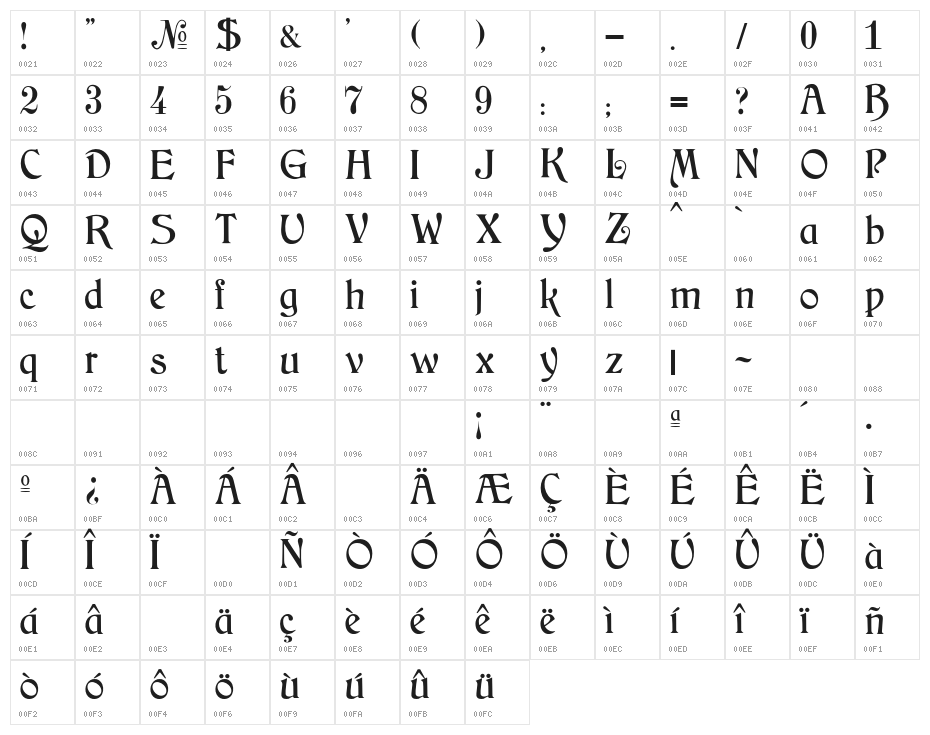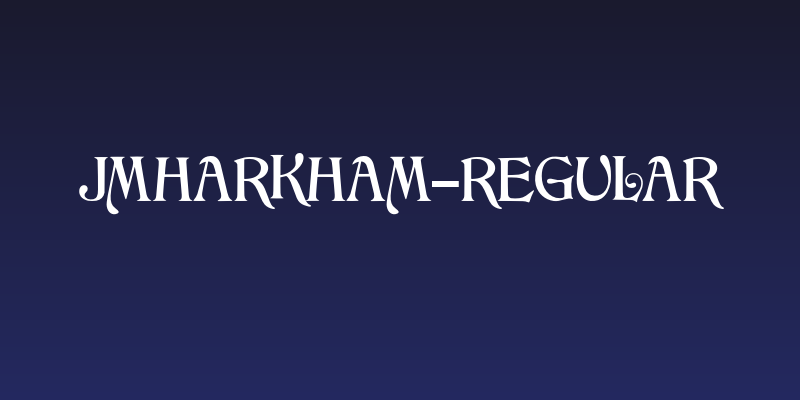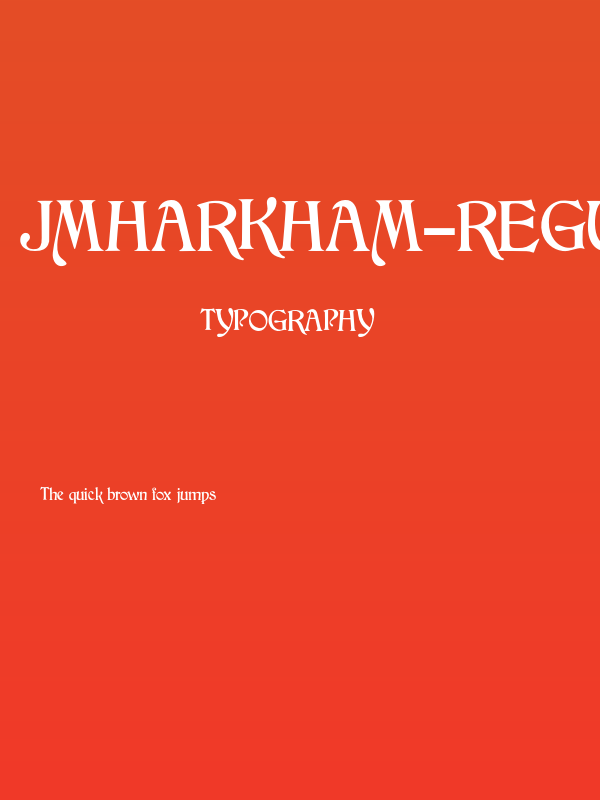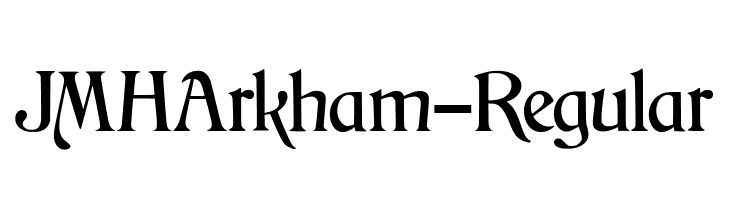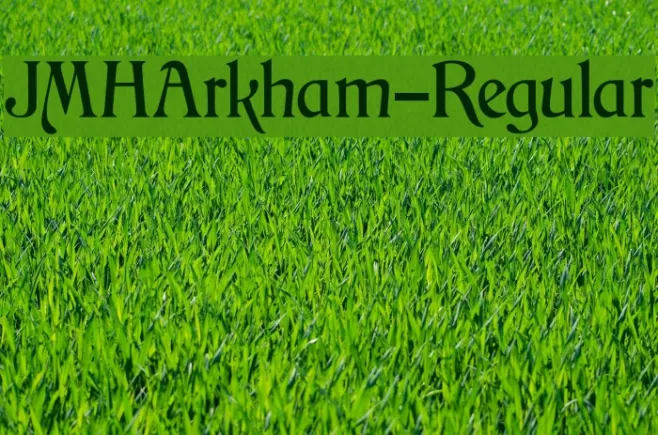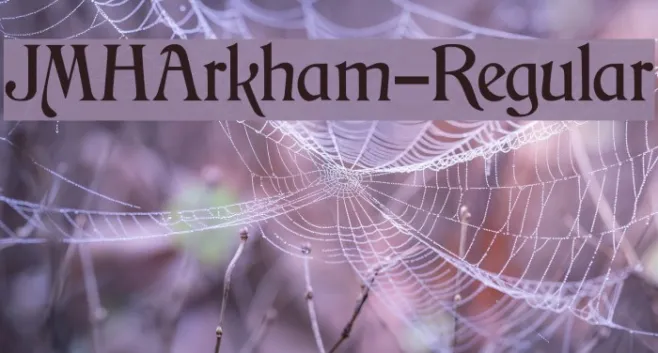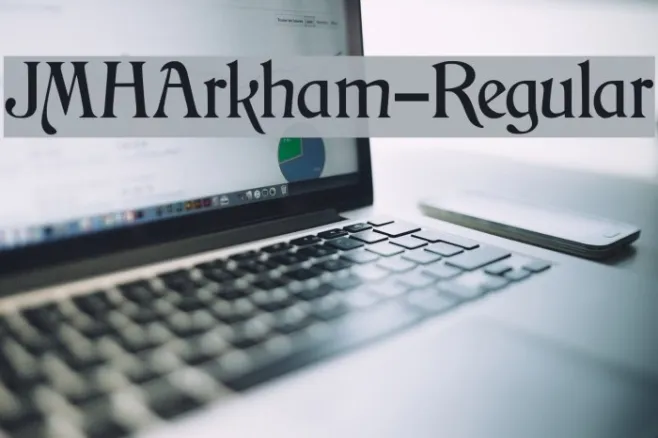
JMHArkham-Regular Font
JMHArkham-Regular Description
This font features a unique and decorative style with a gothic influence, characterized by its sharp serifs and intricate curves. The uppercase letters have a distinct flair, with some characters incorporating swirls and elongated strokes, adding a sense of mystery and elegance. The lowercase letters maintain a consistent style, with a slightly condensed appearance that complements the uppercase. The numerals are bold and ornate, matching the overall aesthetic. Special characters are designed with the same attention to detail, making them suitable for creative and thematic projects.
| Overall Style | Gothic, Decorative |
| Proposed Projects | Ideal for fantasy-themed designs, book covers, posters, and branding that requires a touch of elegance and mystery. |